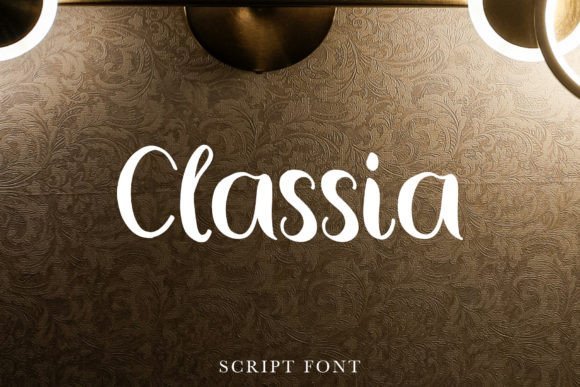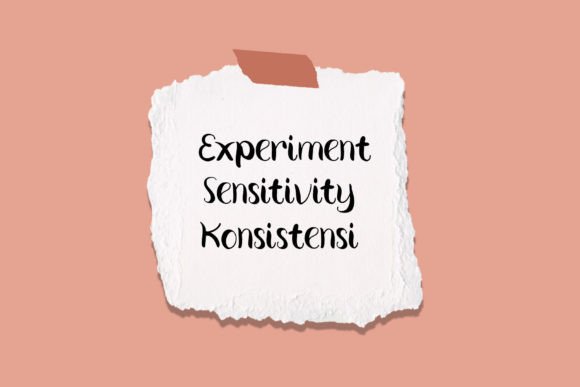
Discover the Perfect Script for Your Next Creative Project
Have you ever found yourself rummaging through your design files, searching for that perfect handwritten font to elevate your latest project? We’ve all been there – the struggle is real. But what if I told you that your search is over? Introducing the Classia Font, a modern, elegant handwritten script font that’s sure to make your designs stand out.
This beautiful font features lovely, large capitals that are perfect for creating eye-catching headings and titles. Whether you’re designing invitations, branding, logos, posters, magazines, or anything in between, the Classia Font is sure to add a touch of sophistication and style to your work. As a designer, you know how valuable a versatile font can be – the Classia Font is a game-changer that’s sure to become a go-to in your design arsenal.
Classia Font Key Features
- Font Family: Classia Font comes in two font families, Classia and Classia Script, offering a range of styles to suit various design needs.
- Unique Characteristics: Classia Font features a unique blend of classic and modern elements, making it an ideal choice for designers seeking a timeless and elegant look.
- Language Support: Classia Font supports a wide range of languages, including Latin, Cyrillic, and Greek alphabets, making it a versatile choice for global designs.
Classia Font Review
Overall, I was pretty excited to dive into the Classia Font and see what it had to offer. The first thing I noticed was its elegant and classic vibe, which makes it perfect for any high-end project. ✨ The font is highly legible, even at smaller font sizes, and its refined lines give it a touch of sophistication.
One of the things I appreciate about Classia is its versatility. It works well in a variety of contexts, from titles and headings to body text. The font is also highly customizable, allowing you to adjust its weight, size, and spacing to suit your design needs. ✨
However, there are a few limitations to consider. ⚠️ The font may not be the best choice for more playful or creative projects, as its classic look can feel a bit sterile. Additionally, some users may find the font’s lines too delicate, making it difficult to read at very small sizes.
- ✨ Elegant and classic design
- ✨ Highly legible, even at small font sizes
- ✨ Versatile and customizable
- ⚠️ May not be suitable for playful or creative projects
- ⚠️ Can feel sterile or delicate at very small sizes
In conclusion, the Classia Font is a solid choice for any project that requires a touch of sophistication and elegance. While it may not be the best fit for every design, its versatility and customizability make it a valuable addition to any designer’s toolkit.
The Classia font is suitable for various design applications, including:
- Logo design
- Brochure design
- Poster design
- Business card design
Alternatives to Classia Font
Playfair Display is a luxurious and elegant serif font, perfect for high-end branding and luxury products. It’s great for creating a sophisticated and refined look. In comparison to Classia Font, Playfair Display has a more ornate and decorative feel, with a wider range of font weights and styles available.
Didot is a classic serif font with a timeless and sophisticated look. It’s ideal for use in high-end fashion, luxury goods, and upscale branding. Compared to Classia Font, Didot has a more refined and polished feel, with a narrower range of font weights and styles available.